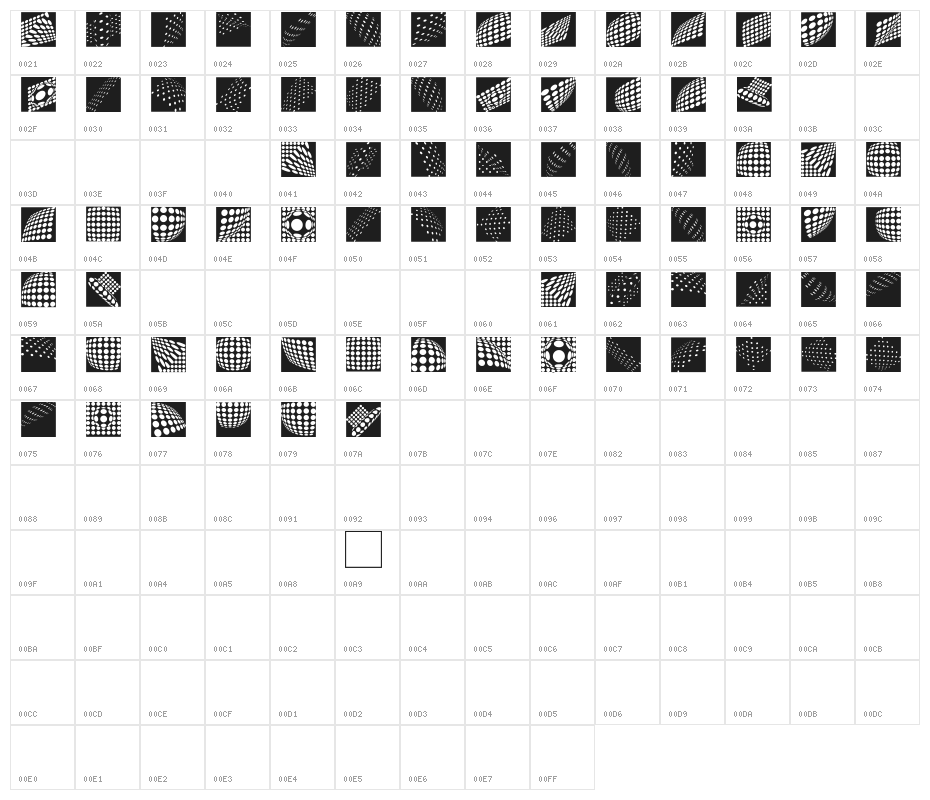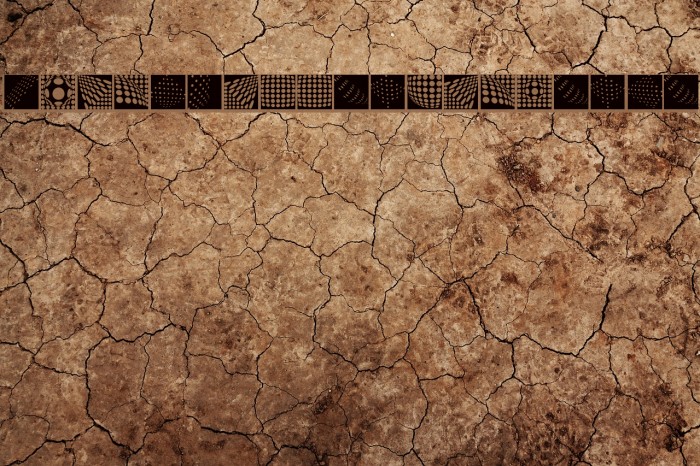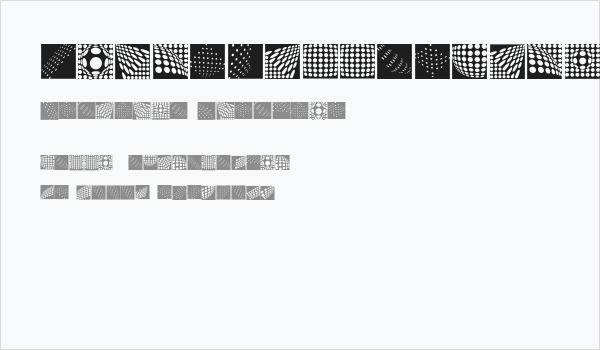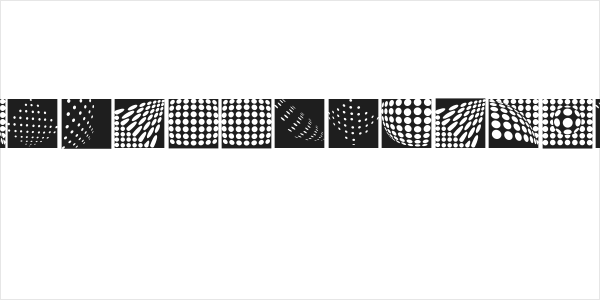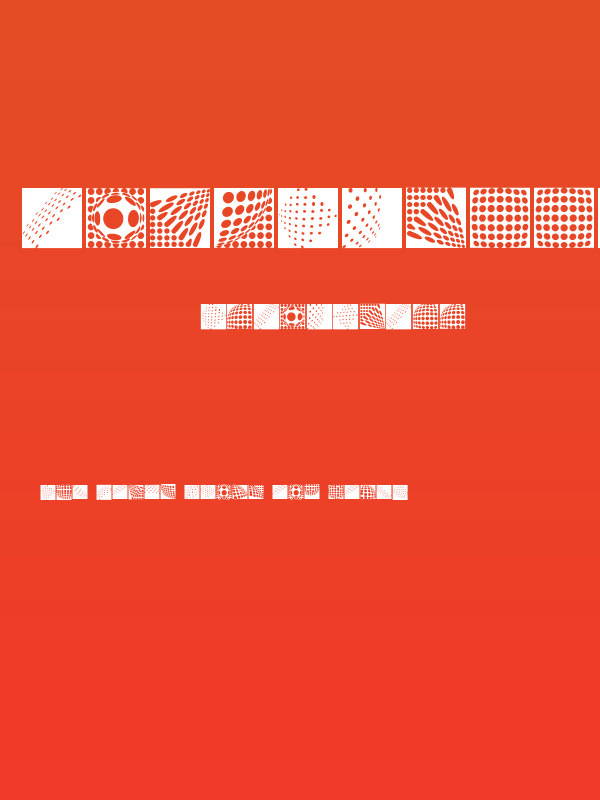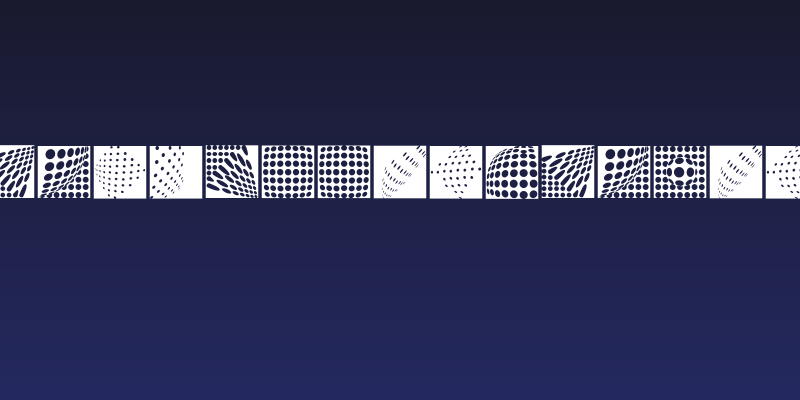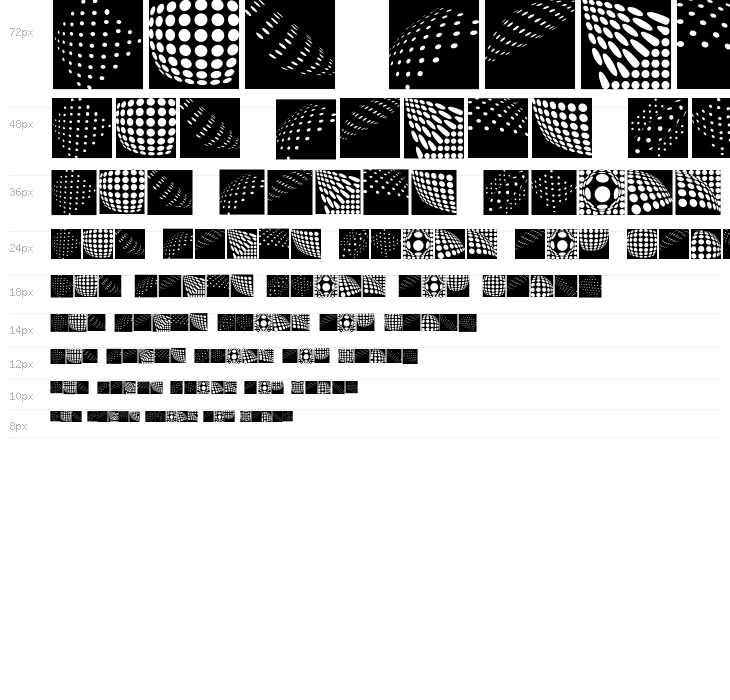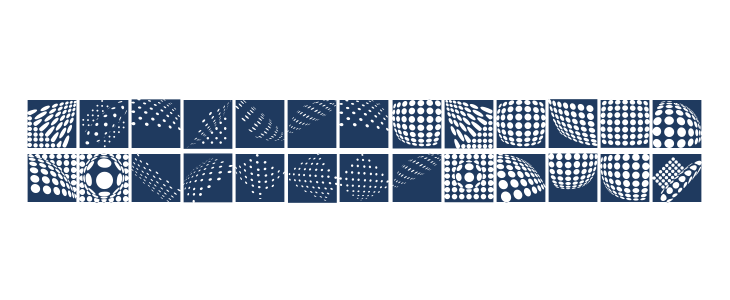
PointGalleryInverse Font
PointGalleryInverse Description
A highly decorative and abstract display typeface composed of geometric dot patterns arranged in warped, grid-like formations, with each character formed by unique arrangements of white dots on a black background, creating a visually dynamic and futuristic effect.
| Overall Style | Futuristic, Decorative, Abstract |
| Use Case | Headlines, Logos, Posters, Artistic projects |
| Proposed Projects | Posters, album covers, digital art, branding for tech or creative industries, experimental editorial layouts. |